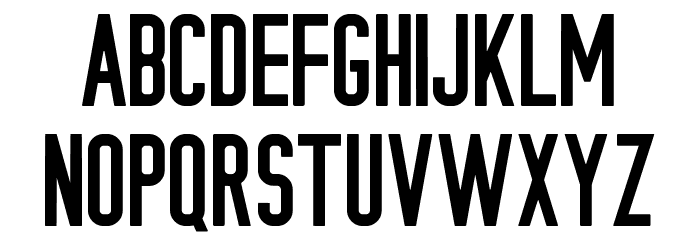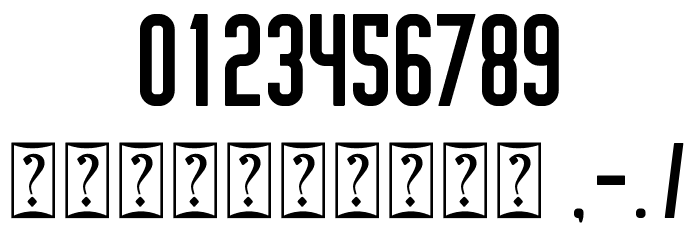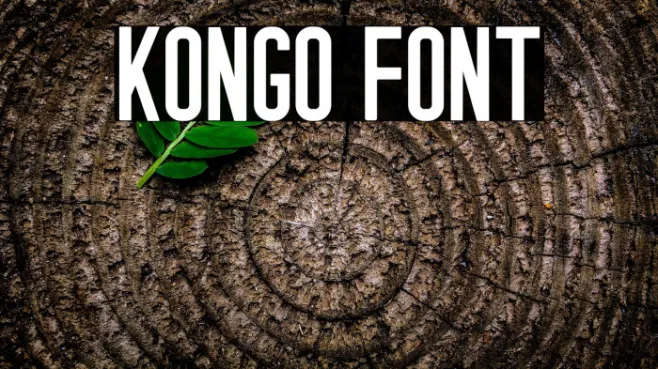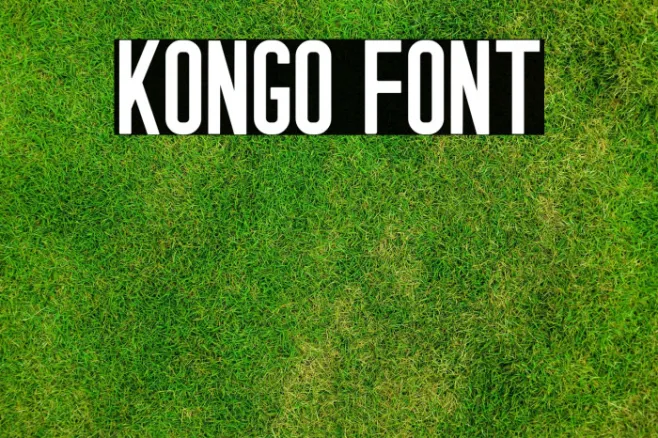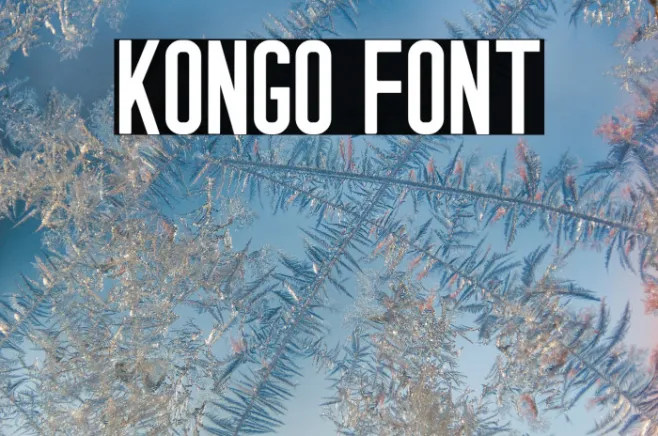
KONGO Font
This font features a bold and condensed style with a strong presence. The uppercase letters are tall and narrow, giving a modern and impactful look. The numbers follow the same condensed style, ensuring consistency across text. The special characters are designed to match the boldness of the letters and numbers, maintaining a cohesive appearance. The overall design is clean and straightforward, making it suitable for attention-grabbing headlines and titles. The font's sharp edges and uniform stroke width contribute to its contemporary and assertive aesthetic.
A bold, condensed font with a modern and impactful style.
- Proposed Projects: Ideal for posters, headlines, branding materials, and any project requiring a strong visual impact.